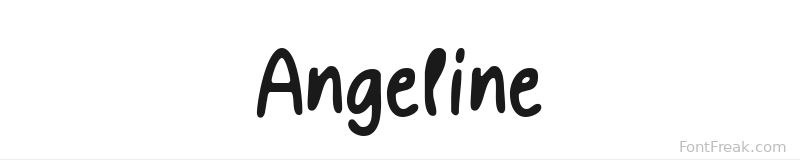
Angeline
Introducing the Angeline font by MJType, a stunning display typeface that effortlessly combines elegance with modern design. This script-style font features fluid, sweeping curves and a graceful flow that captures the essence of handwritten artistry. Angeline boasts a medium stroke weight with subtle variations that add depth and character, while its generous spacing enhances readability, making it perfect for various applications.
The visual characteristics of Angeline include its stylish ascenders and descenders, which create an inviting and warm aesthetic. The playful nature of the font is complemented by its occasional decorative elements, adding a unique flair that makes it stand out. This versatility allows Angeline to shine in numerous contexts, including wedding invitations, where its romantic style can evoke heartfelt emotions. It’s also an excellent choice for movie posters, as the captivating design can draw in viewers and set the tone for the film. Restaurant menus will benefit from Angeline’s charm, providing a welcoming feel that can enhance the dining experience. Furthermore, content creators looking to add a personal touch to their blogs or social media graphics will find this font to be an ideal match.
Targeted towards graphic designers, small business owners, and content creators, Angeline offers a refreshing typographic solution that resonates with audiences across various platforms. Whether you’re crafting promotional materials or personal projects, this font elevates your design with its inherent elegance.
In conclusion, the Angeline font stands out due to its exquisite blend of style and functionality. With its free download availability, it offers a unique opportunity for creatives to incorporate a distinctive typeface into their work. Don’t miss out on the chance to enhance your projects with this charming font.